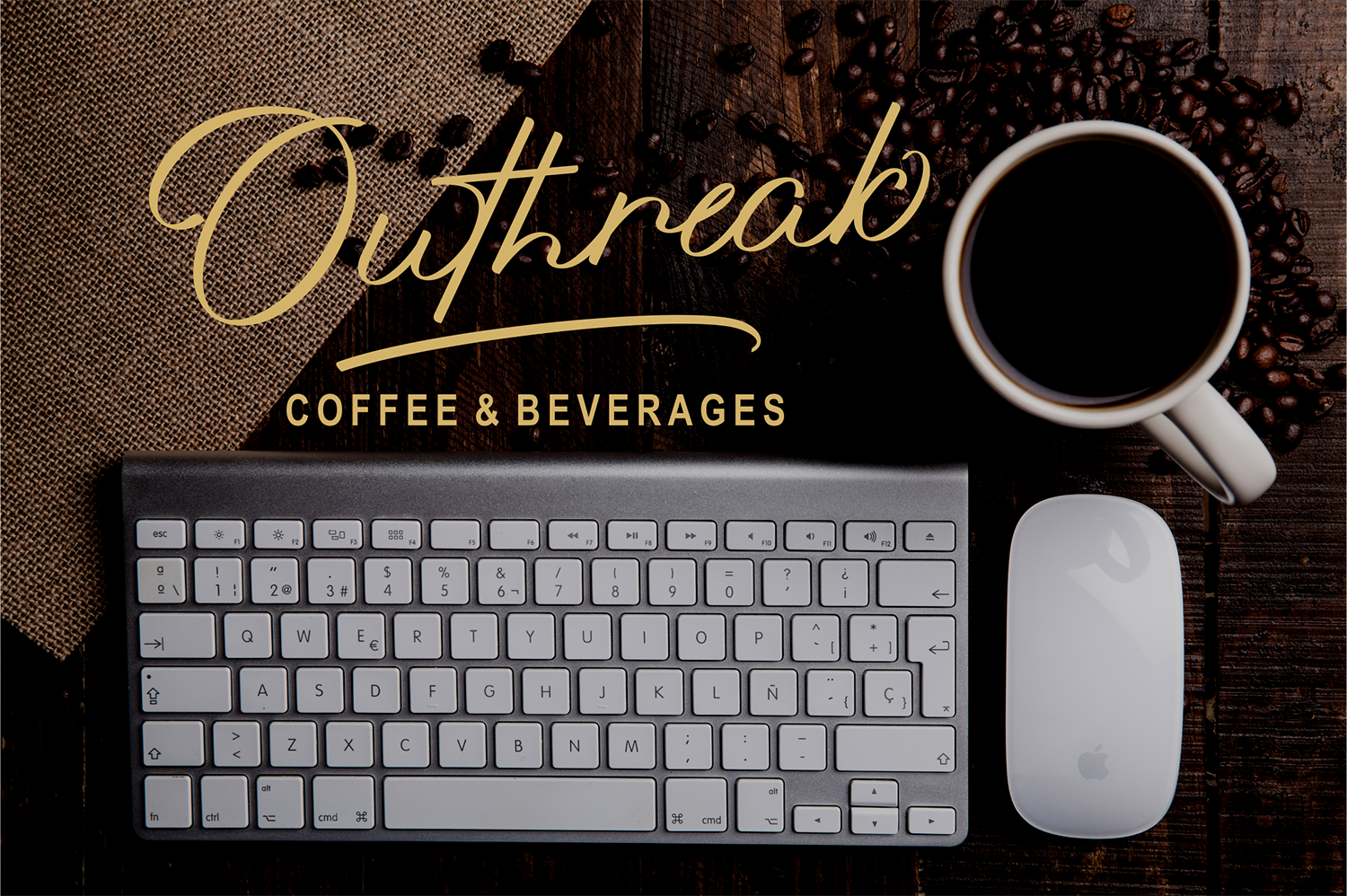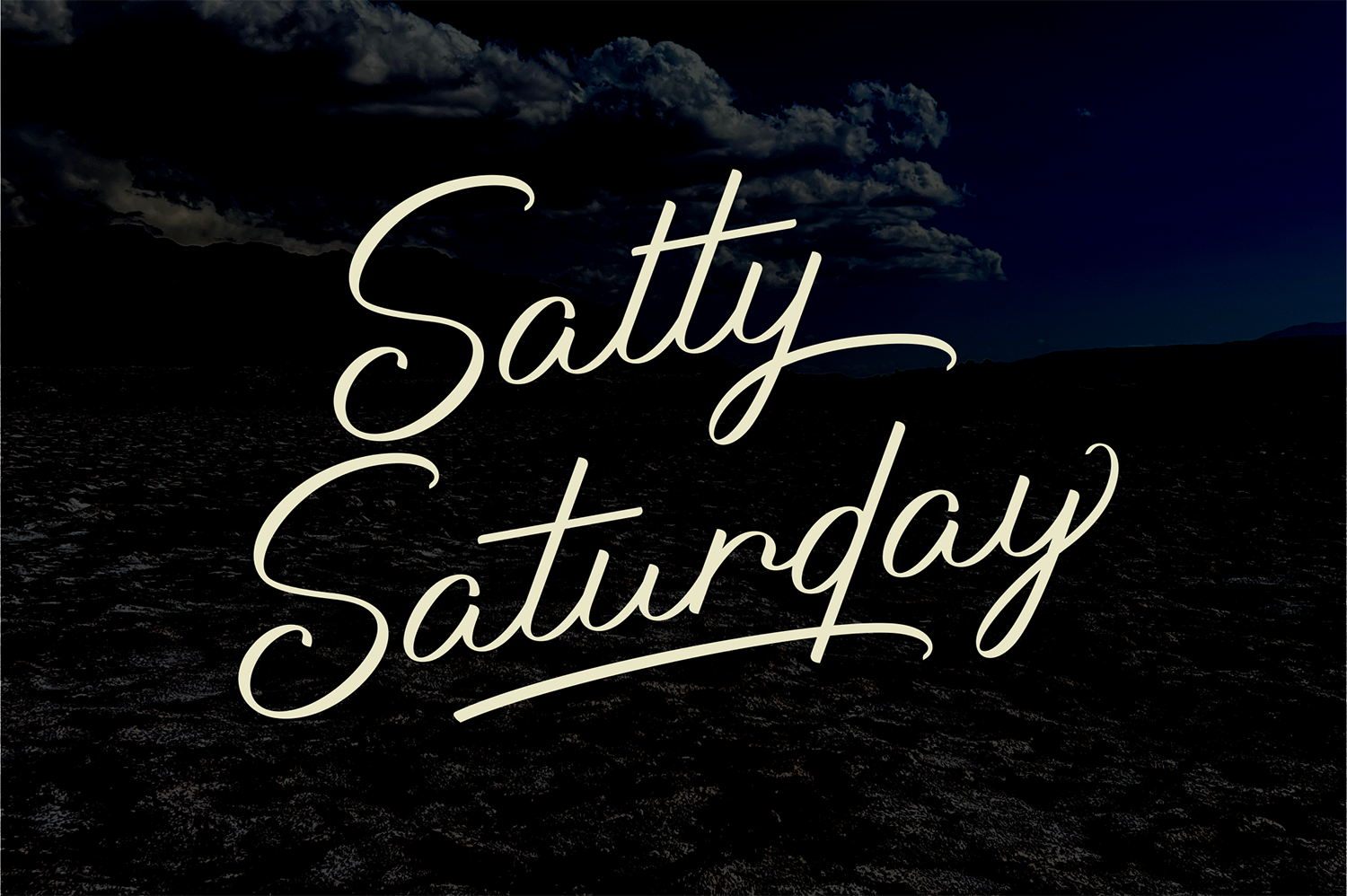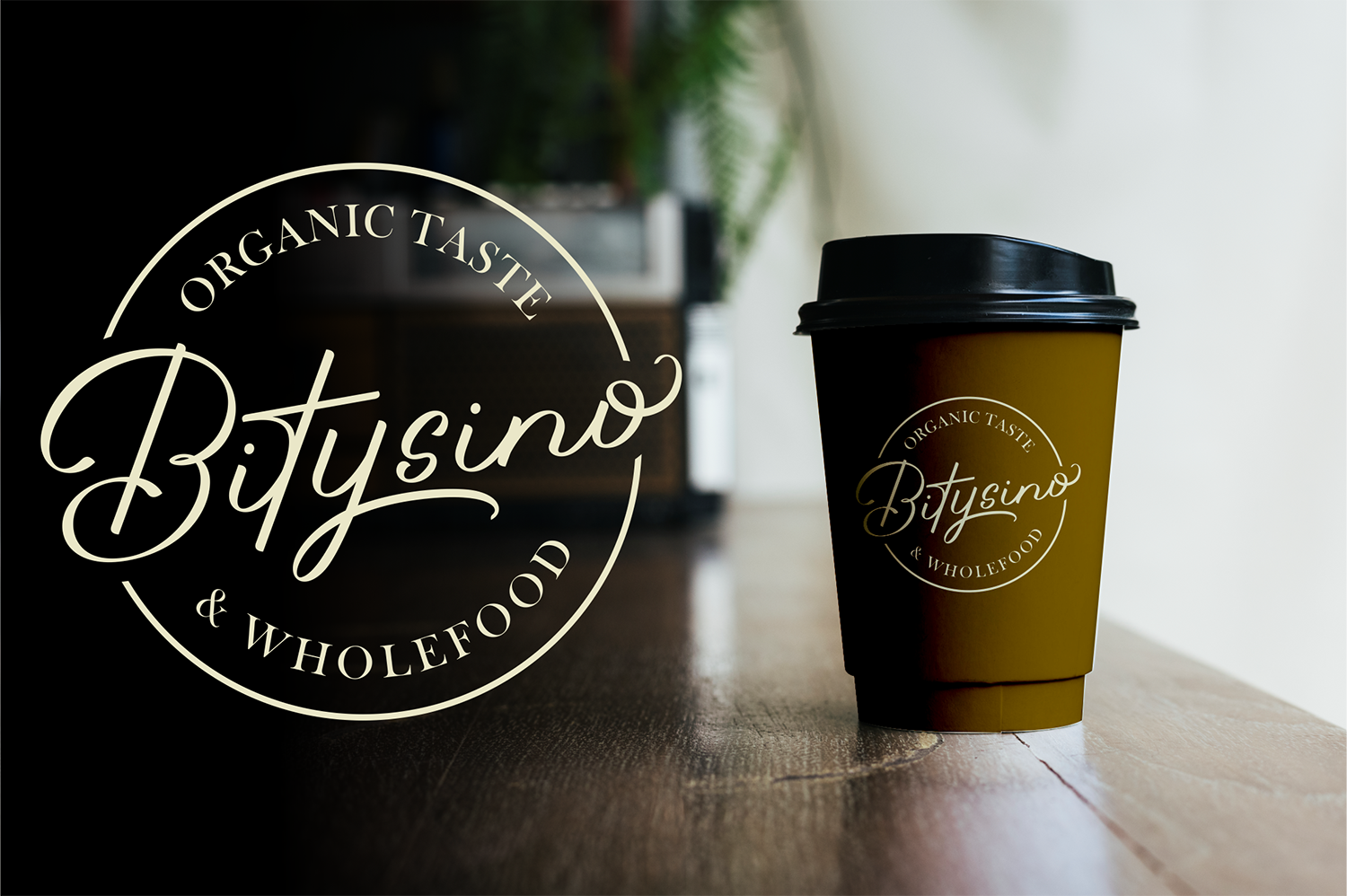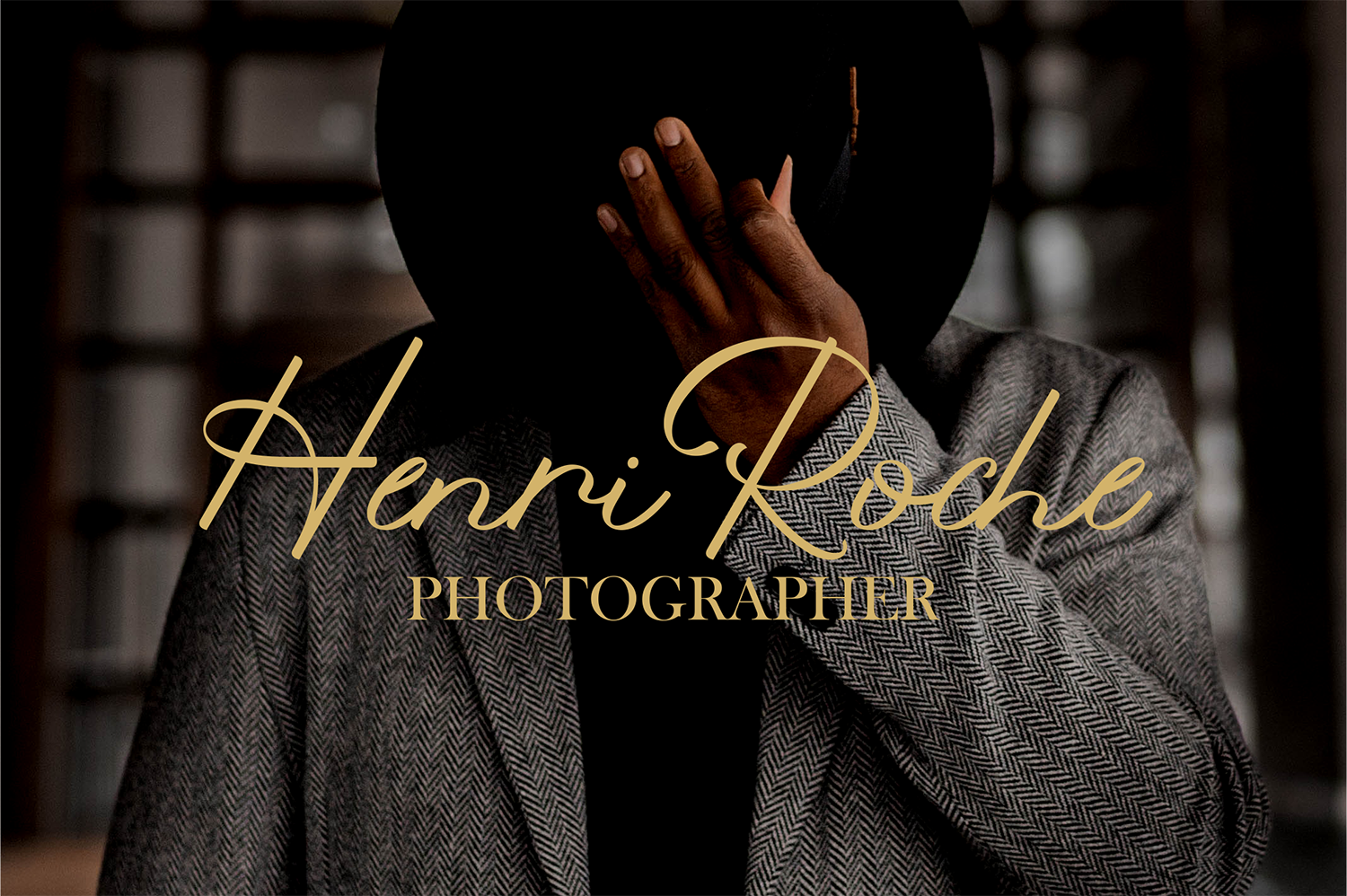
Crystania Free Font
Experience the enchanting beauty of Crystania Free Font, a sweet calligraphy font where characters gracefully dance along the baseline. With its romantic essence, this typeface infuses a touch of luxury into any design project you set your sights on. Let Crystania spark a sense of elegance and charm, elevating your creations to new heights of allure and sophistication. This free typeface was designed by a talented RGB Studio. If you like it don’t forget to check out the full version.